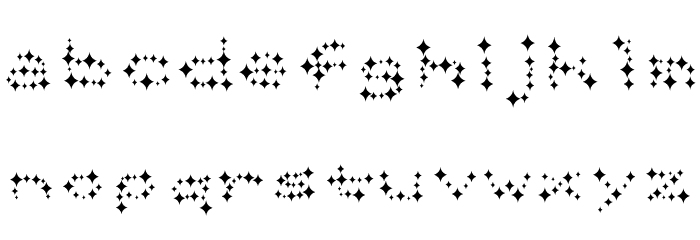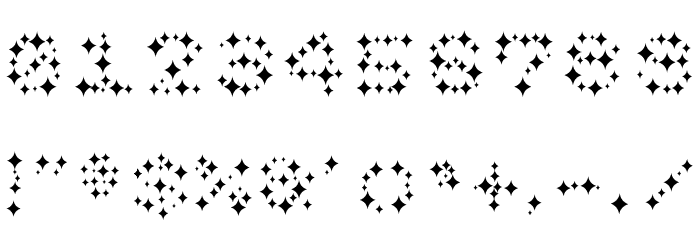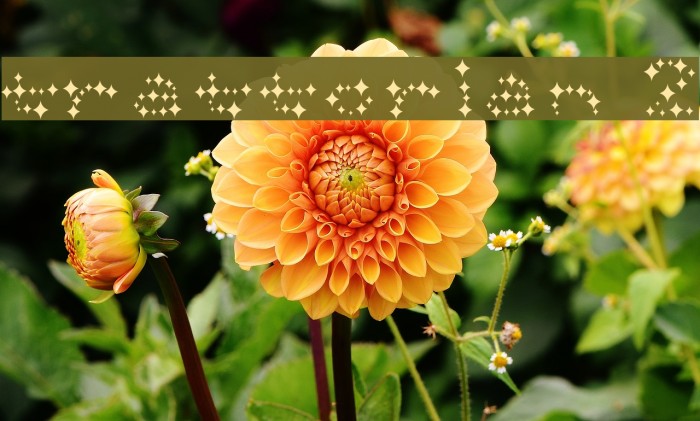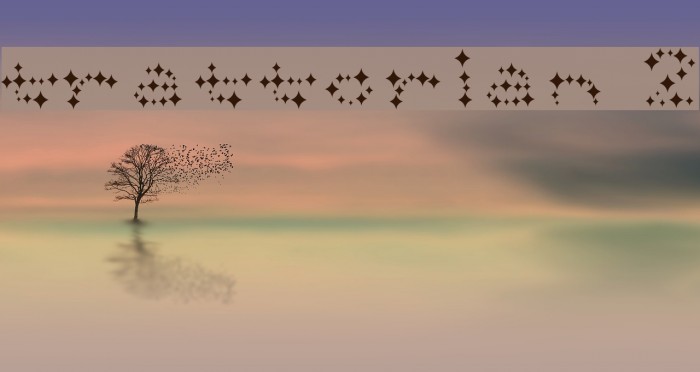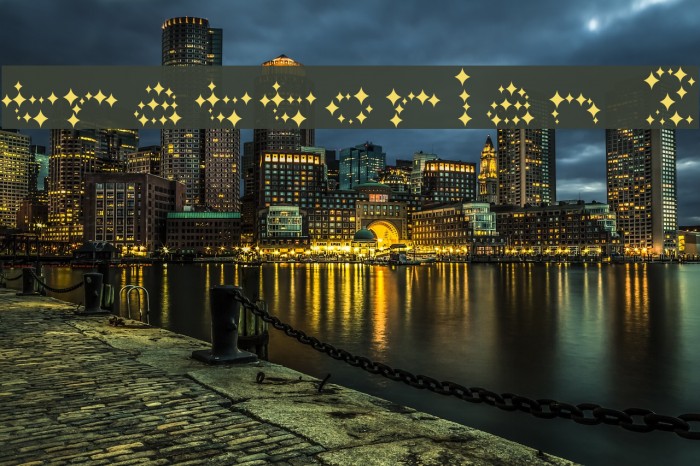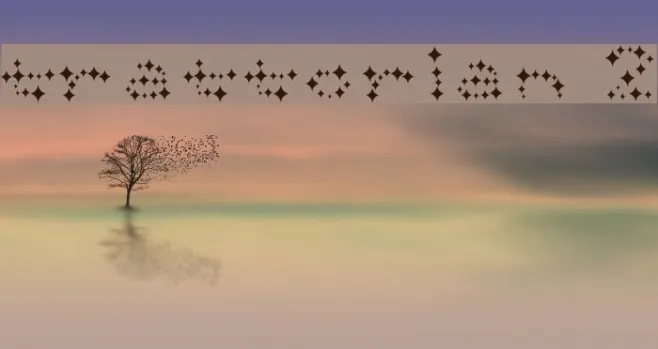
trattorian 2 Font
This font features a unique and decorative style, characterized by its use of star-like shapes to form each character. The letters are composed of small, evenly spaced diamond shapes, creating a visually striking and intricate pattern. This design gives the font a playful and whimsical appearance, making it stand out for creative uses. The uppercase and lowercase letters maintain a consistent style, while the numbers and special characters follow the same decorative pattern. The overall effect is both artistic and eye-catching, suitable for projects that require a distinctive and memorable typeface.
A decorative font with star-like shapes forming each character.
- Proposed Projects: Ideal for creative projects such as invitations, posters, and branding that require a unique and artistic touch.
- Use Case: Headlines, Logos, Artistic projects